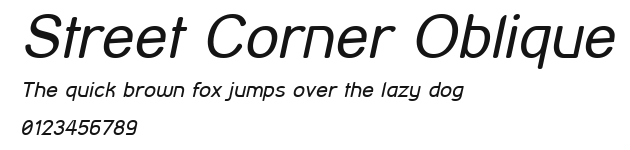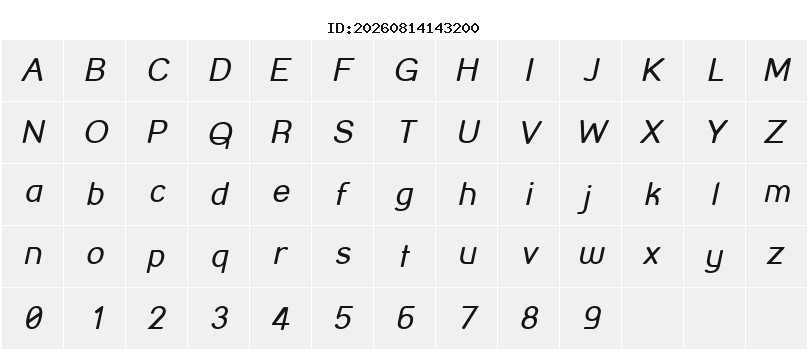
Street Corner Oblique Preview
About Street Corner Oblique.ttf
Street Corner Oblique.ttf is a modern, elegant sans-serif font designed for ultimate readability and visual harmony. Perfect for branding, headlines, web design, and print materials.